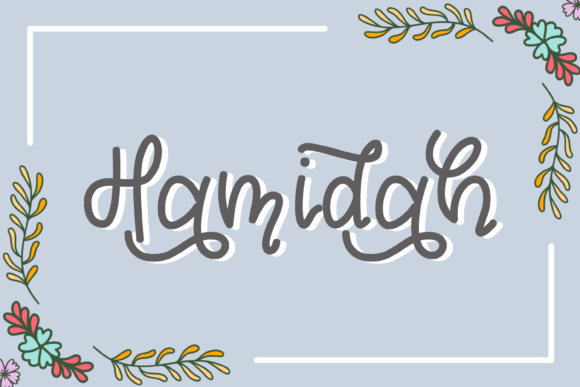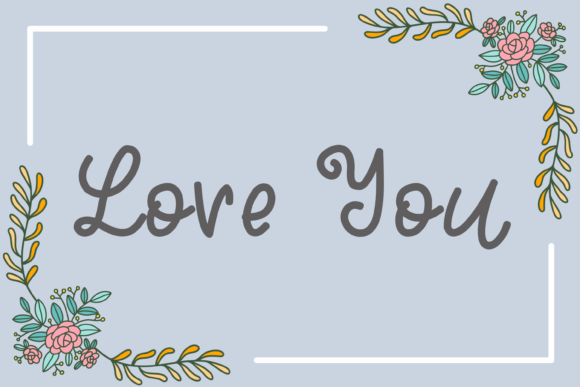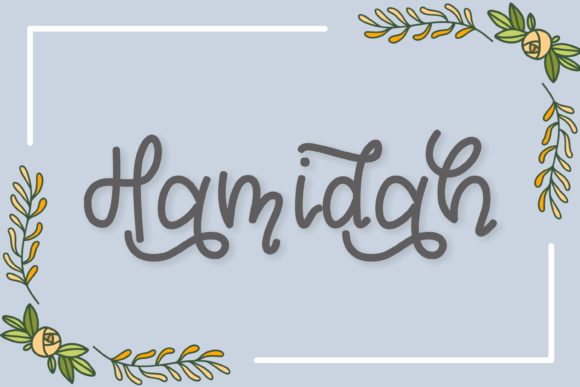
Discover the Elegance of Hamidah Font: Elevate Your Designs with a Timeless Handwritten Style
Are you on the hunt for a font that exudes elegance and sophistication? Look no further than the beautiful Hamidah Font. This stunning handwritten font is characterized by its flowing lines and refined touch, making it perfect for designers and crafters seeking to add a touch of class to their projects. With its distinct and timeless style, Hamidah Font is sure to capture your heart and inspire your creativity.
The Unique Charm of Hamidah Font
Hamidah Font boasts an incredibly distinct style that sets it apart from other fonts. Its elegant and flowing lines give it a sophisticated look that’s perfect for a wide range of design applications. Whether you’re working on a logo, branding materials, or digital content, Hamidah Font is sure to make a lasting impression. Its unique charm lies in its ability to convey a sense of refinement and luxury, making it an excellent choice for designers and crafters who want to elevate their designs.
One of the best things about Hamidah Font is its versatility. Its elegant style makes it suitable for a wide range of projects, from:
- Logos and branding materials: Create a lasting impression with a font that exudes sophistication and refinement.
- Digital content: Add a touch of elegance to your blog posts, social media graphics, and website designs.
- Print materials: Use Hamidah Font to create stunning business cards, brochures, and flyers.
- Crafting projects: Add a personal touch to your handmade crafts, such as journals, cards, and scrapbooking projects.
Why Choose Hamidah Font?
So, what makes Hamidah Font an excellent choice for designers and crafters? Here are just a few reasons:
- Timeless style: Hamidah Font’s elegant style is timeless and won’t go out of fashion anytime soon.
- Versatility: Use Hamidah Font for a wide range of projects, from digital content to print materials and crafting projects.
- Elegance: Hamidah Font exudes sophistication and refinement, making it perfect for designers and crafters who want to create high-end designs.
- Easy to read: Despite its elegant style, Hamidah Font is easy to read, making it perfect for body text and captions.
Tips for Using Hamidah Font
To get the most out of Hamidah Font, here are a few tips:
- Use it sparingly: Hamidah Font is perfect for headlines and titles, but use it sparingly for body text to avoid overwhelming your design.
- Pair it with other fonts: Experiment with pairing Hamidah Font with other fonts to create a unique and visually appealing design.
- Experiment with colors: Hamidah Font looks stunning in a variety of colors, so don’t be afraid to experiment and find the perfect hue for your design.
In conclusion, Hamidah Font is a beautiful and elegant handwritten font that’s perfect for designers and crafters seeking to add a touch of sophistication to their projects. With its timeless style, versatility, and elegance, Hamidah Font is sure to become a favorite in your design arsenal. So why wait? Fall in love with Hamidah Font and use it to create spectacular designs that will leave a lasting impression.
Whether you’re a seasoned designer or a crafty DIY enthusiast, Hamidah Font is an excellent choice for anyone looking to elevate their designs. So go ahead, give Hamidah Font a try, and discover the elegance and sophistication it can bring to your projects.